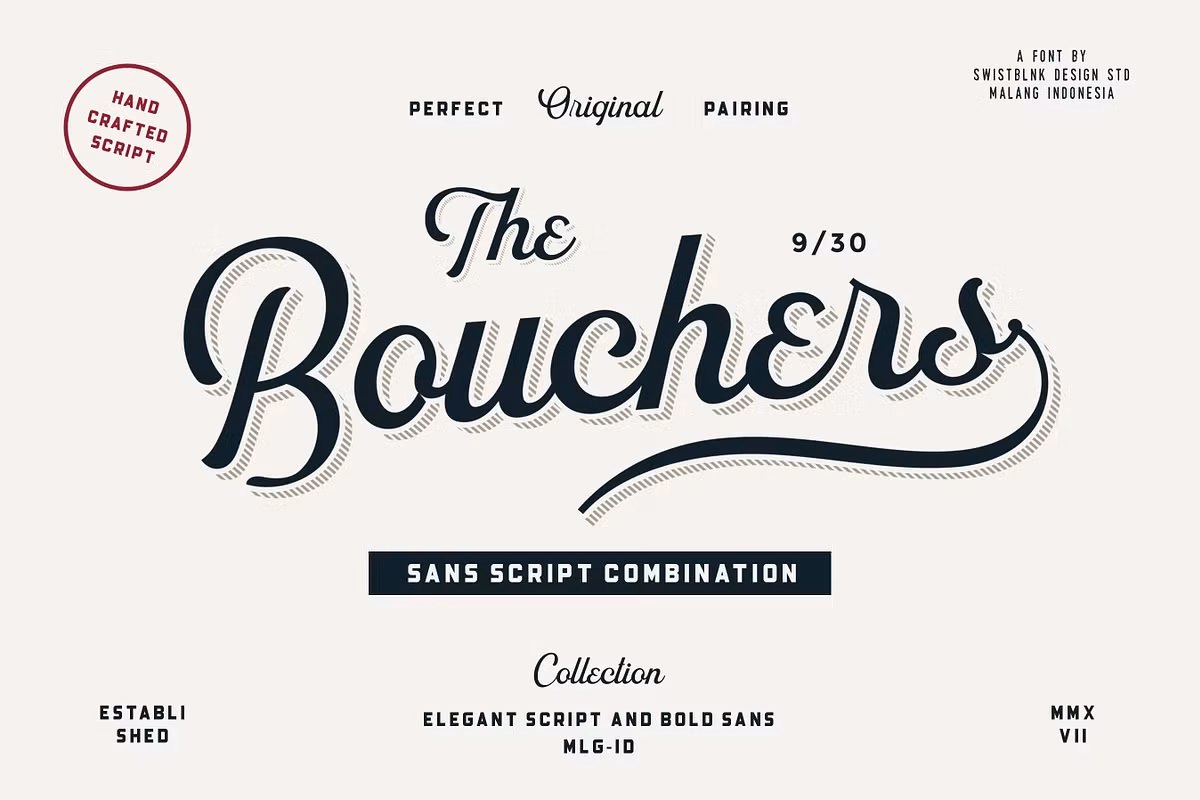
Bouchers Script 2.0 Font Free Download
Please note, you must purchase this font for commercial use. However, you can easily download Bouchers Script 2.0 Font Free Download for personal use and testing purposes. Bouchers Script 2.0 Font is an elegant and fluid handwritten script typeface designed to add a sophisticated, artistic touch to any project. With its smooth curves and flowing letterforms, this font is perfect for branding, invitations, logos, greeting cards, and more. Whether you're designing for a luxurious brand, a creative event, or personalized stationery, Bouchers Script 2.0 Font Free Download brings a refined, stylish look to your designs. Download Bouchers Script 2.0 Font Free Download today and explore its beautiful potential before opting for a commercial license.